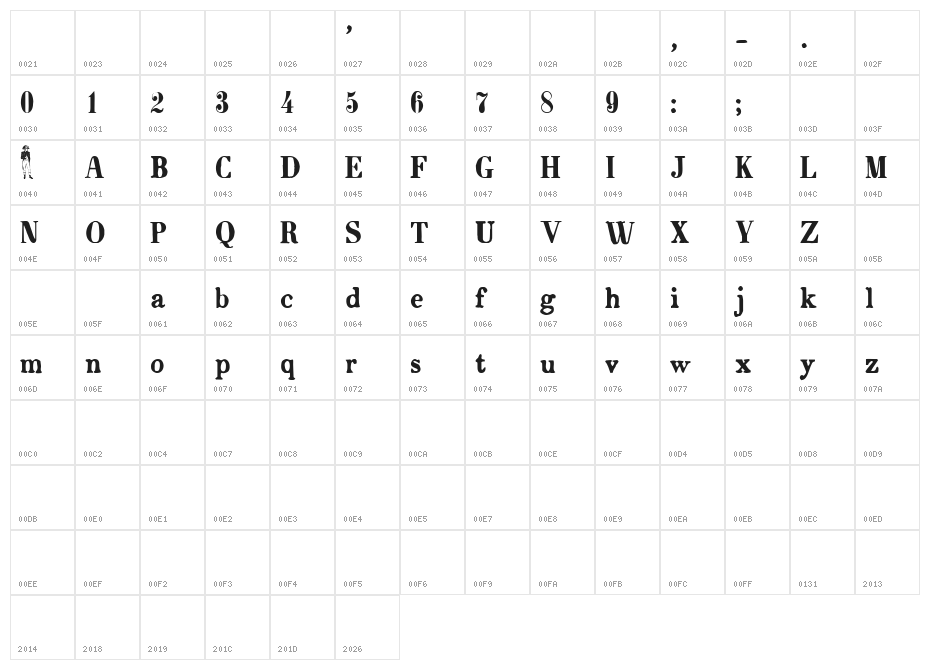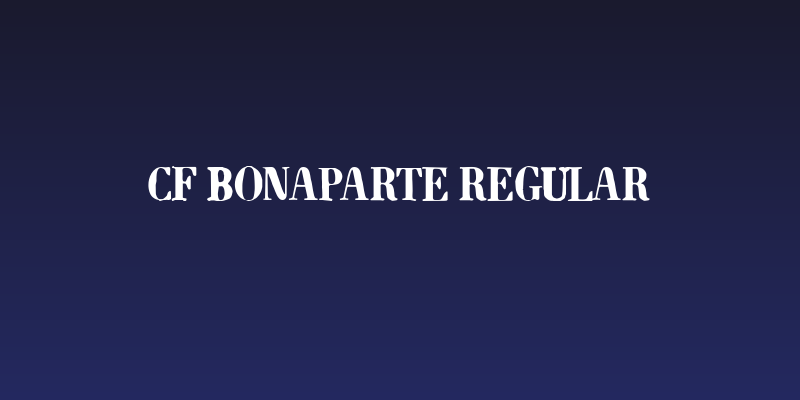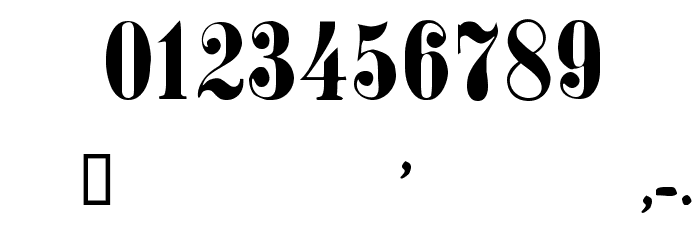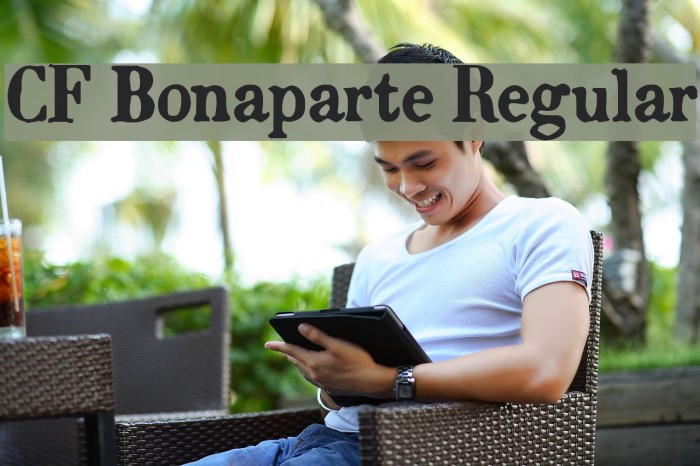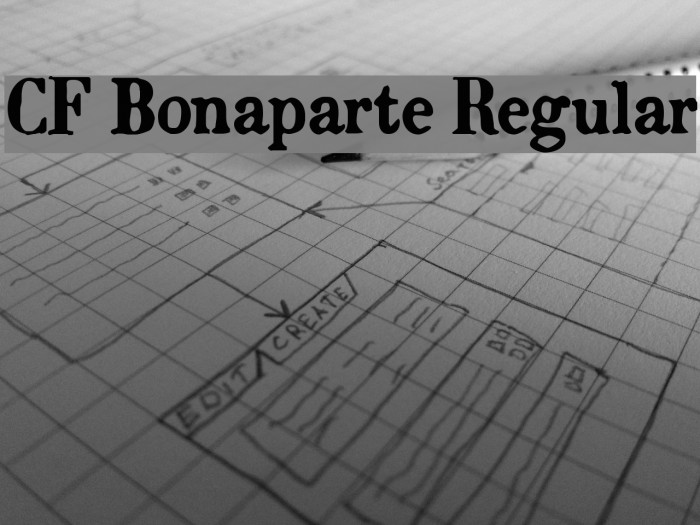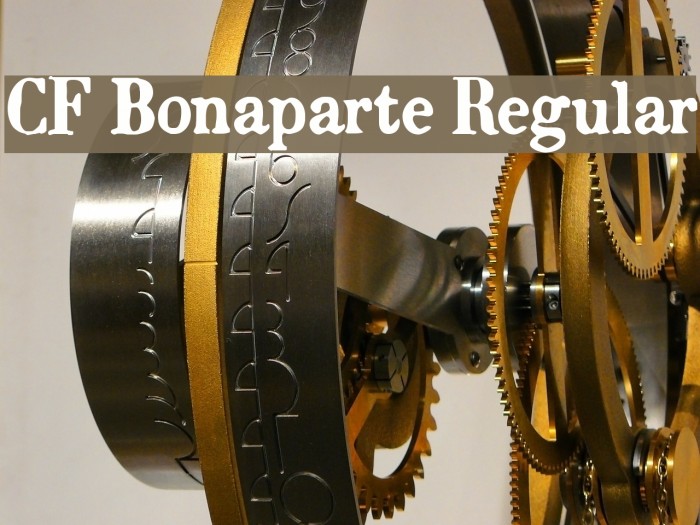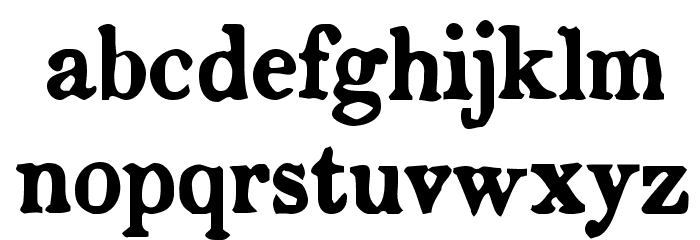
CF Bonaparte Regular Font
CF Bonaparte Regular Description
This font features a bold and dramatic style with high contrast between thick and thin strokes, giving it a distinctive and eye-catching appearance. The uppercase letters are particularly striking, with strong vertical lines and elegant curves that create a sense of grandeur and sophistication. The lowercase letters maintain this boldness while offering a slightly more playful and approachable feel. The numerals are equally bold, with unique flourishes that add character and flair. Special characters are designed to complement the overall style, ensuring consistency and visual harmony throughout. This font is well-suited for projects that require a strong and memorable visual impact.
| Proposed Projects | Ideal for branding, poster design, book covers, and any project needing a strong visual impact. |